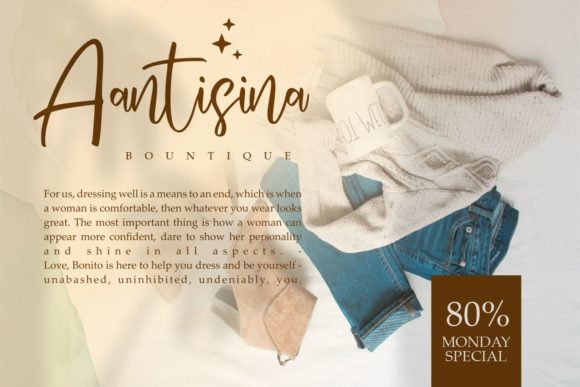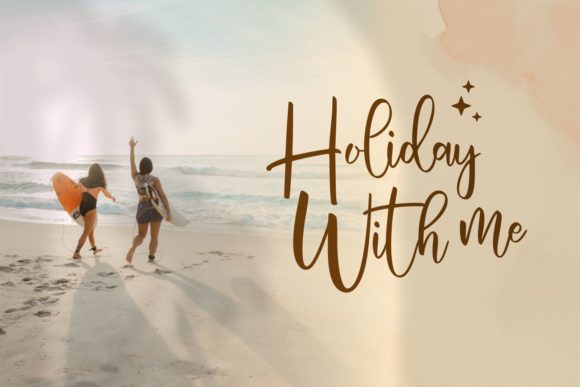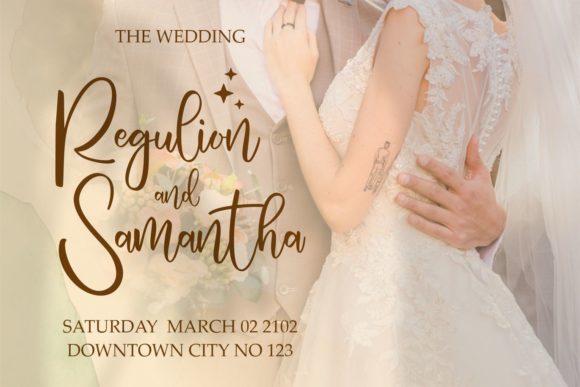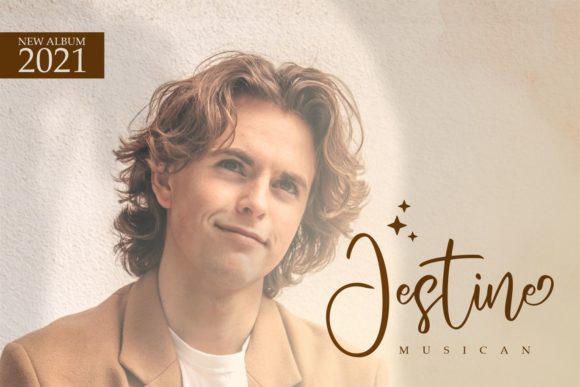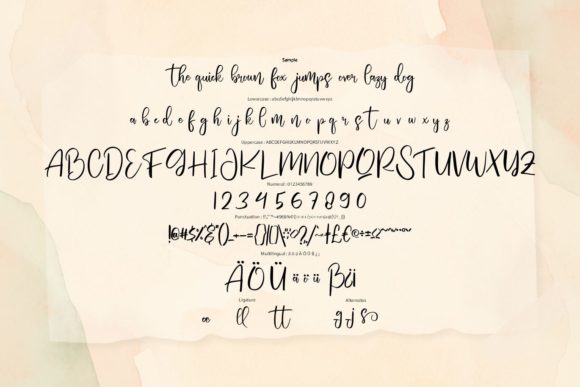
Introducing Ballines Font: Elevate Your Designs with Elegant Script
In the world of typography, a well-crafted font can make all the difference in elevating your design projects from ordinary to extraordinary. For designers and crafters seeking a touch of sophistication and elegance, Ballines Font is an exceptional choice. This beautiful script font is inspired by timeless classic calligraphy, offering a contemporary atmosphere and impeccable form that will enhance the beauty of your projects.
The Inspiration Behind Ballines Font
Ballines Font draws its inspiration from the art of classic calligraphy, where the elegance of handwritten scripts has been a cornerstone of beautiful design for centuries. The creator of Ballines Font aimed to capture the essence of this traditional art form while infusing it with a modern twist. The result is a font that embodies both the sophistication of classic calligraphy and the versatility required for contemporary design projects.
Key Characteristics of Ballines Font
So, what makes Ballines Font stand out from other script fonts available today? Here are some of its key characteristics:
- Balanced and Varied: Ballines Font strikes the perfect balance between not being too thin and not too thick. This balance ensures that your text remains legible and visually appealing across various mediums and sizes.
- Elegant and Contemporary: The font boasts an elegant script style that brings a touch of sophistication to any project. Its contemporary atmosphere makes it versatile enough for modern designs while maintaining a classic feel.
- Impeccable Form: The design of Ballines Font focuses on impeccable form, ensuring that each letter and character is crafted with precision and attention to detail. This attention to detail results in a font that looks polished and refined.
Uses of Ballines Font
Ballines Font’s versatility and elegance make it suitable for a wide range of design projects. Here are some popular uses:
- Branding and Logos: Create a lasting impression with a sophisticated logo that stands out. Ballines Font’s unique style can help your brand identity look premium and memorable.
- Wedding and Event Invitations: Add a touch of elegance to your wedding or event invitations. The font’s classic yet contemporary feel makes it perfect for creating beautiful and heartfelt invitations.
- Packaging Design: Elevate your product packaging with a font that communicates luxury and quality. Ballines Font can help your product stand out on crowded shelves.
- Digital and Print Media: Whether you’re working on a website, blog, magazine, or brochure, Ballines Font can add a layer of sophistication and professionalism to your content.
Why Choose Ballines Font?
With so many fonts available, why should Ballines Font be your choice? Here are a few compelling reasons:
- Unique Style: Ballines Font offers a unique script style that can help your designs stand out. Its blend of classic inspiration and modern sensibilities makes it a rare find.
- Legibility: Despite its elegant and sometimes intricate design, Ballines Font remains highly legible. This ensures that your message is communicated clearly and effectively.
- Versatility: The font’s versatility means it can be used across various design projects, from digital media to print materials, offering you a flexible solution for your typography needs.
Ballines Font is more than just a script font; it’s a tool to elevate your design projects with elegance and sophistication. Its inspiration from timeless classic calligraphy, combined with a contemporary atmosphere and impeccable form, makes it a valuable asset for designers and crafters. Whether you’re looking to create stunning branding, beautiful invitations, or captivating packaging, Ballines Font is an excellent choice. Discover the difference it can make in your designs today.